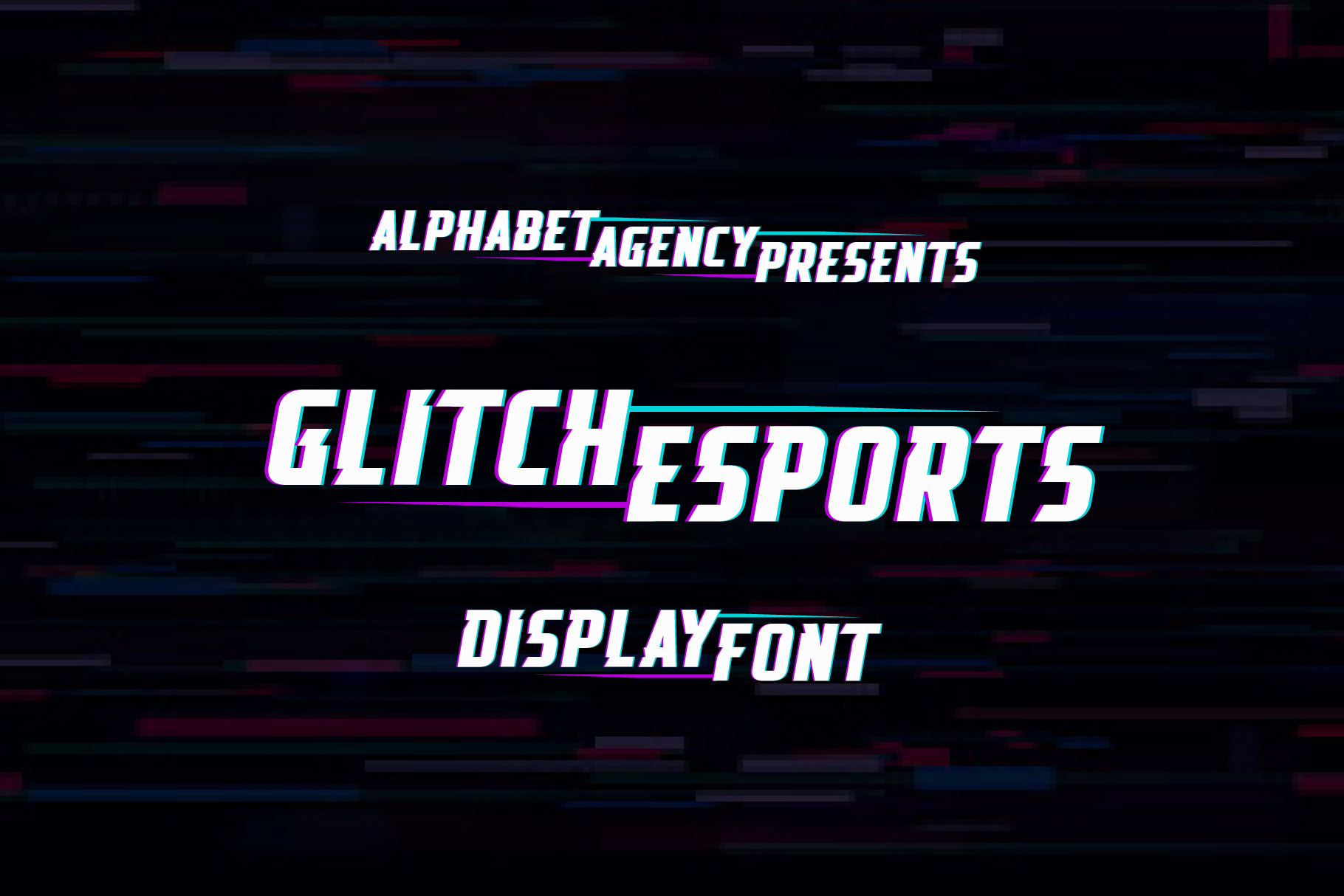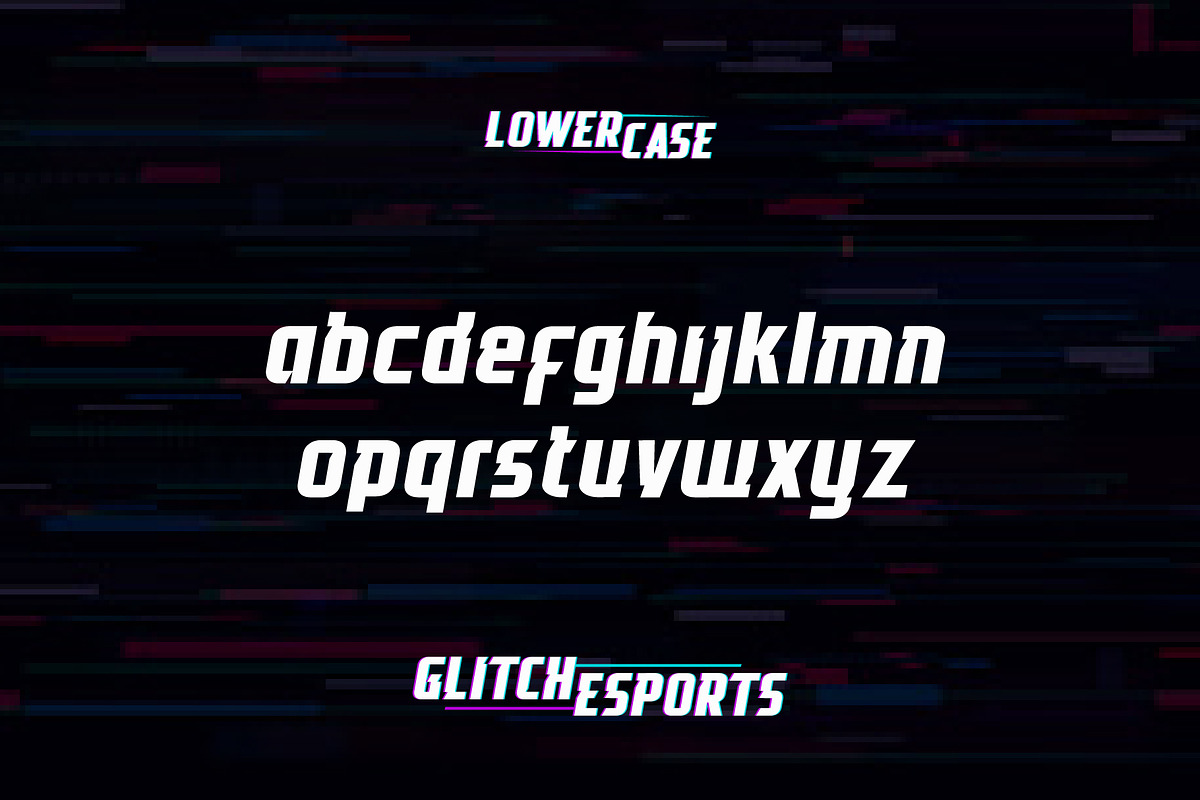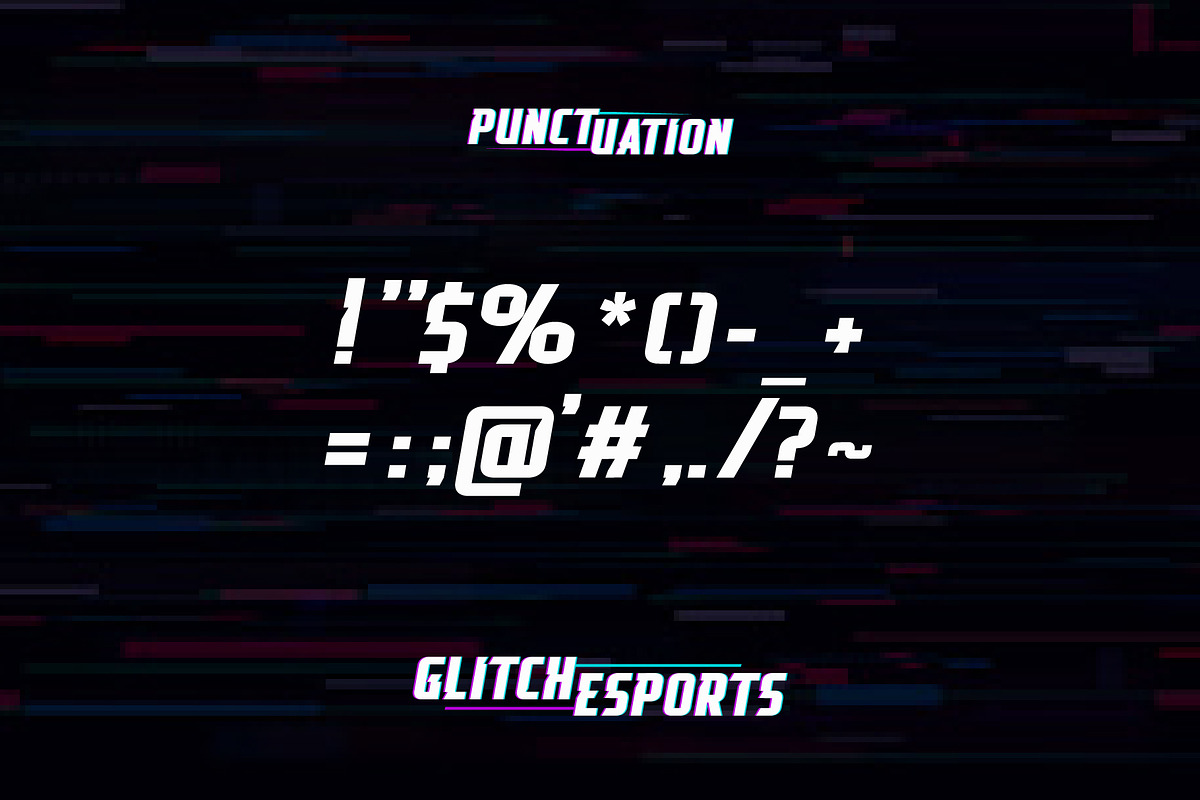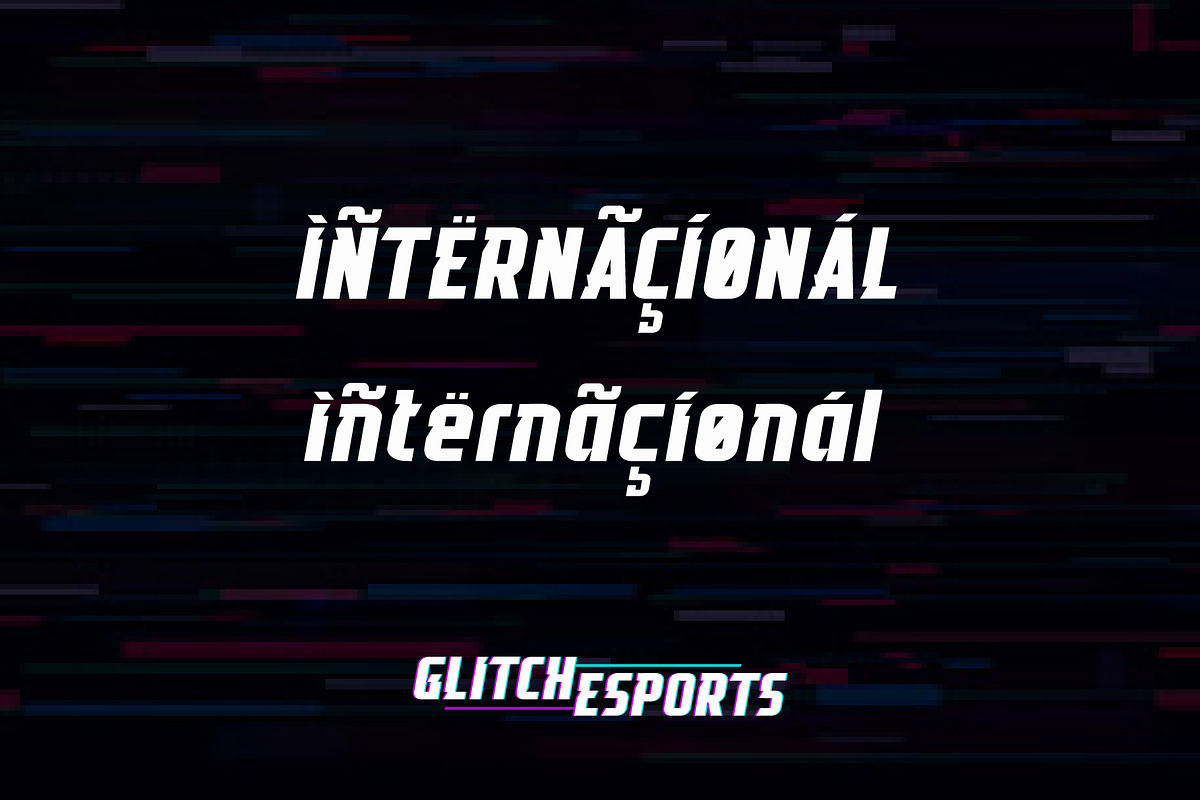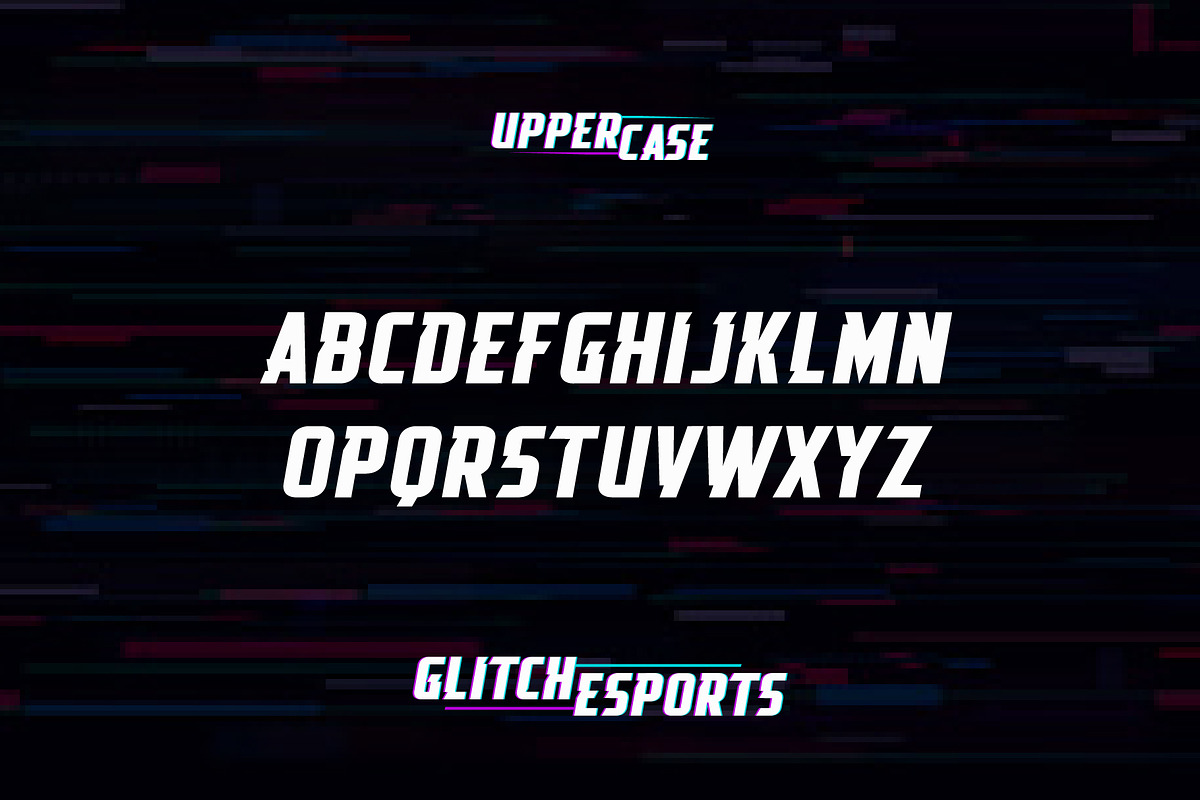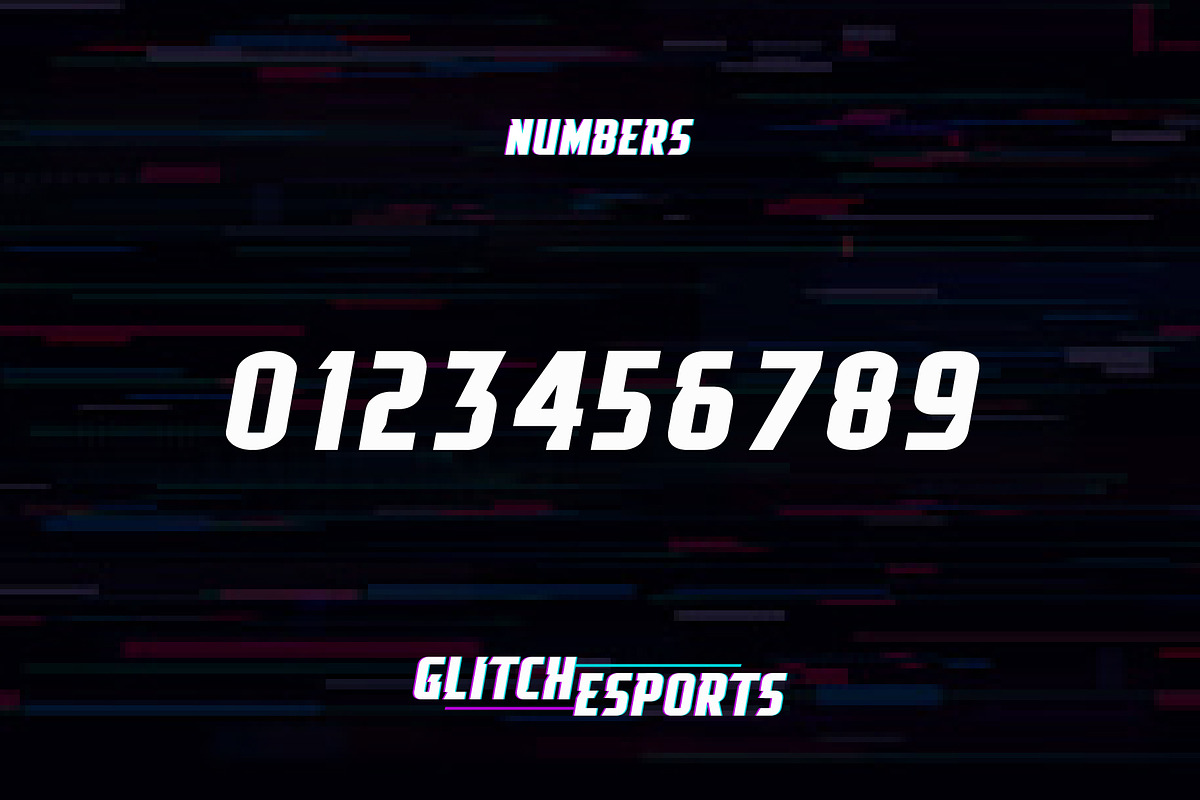
GLITCH ESPORTS DISPLAY FONT
Alphabet Agency presents this super cool new font originally designed for use in e-Sports related projects. Due to the private success, it is now commercially available for you to use. So now is your chance to stay ahead of the curve and of the competition with this on-trend style and create some new cool designs. gg.